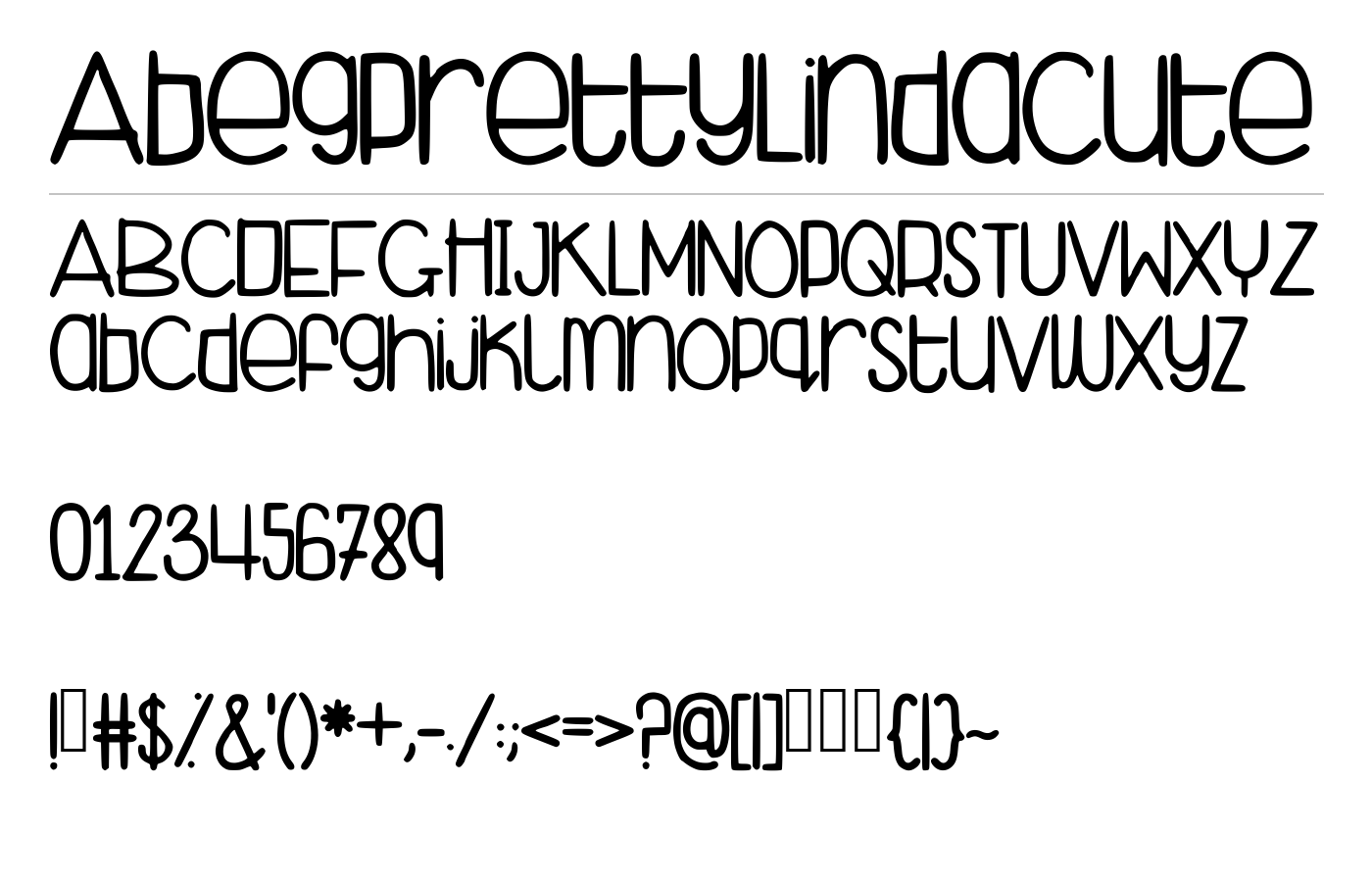
AbegPrettyLindaCute is a playful, hand-drawn sans serif font featuring tall, narrow letterforms with uneven strokes that give it a charming, whimsical character. Its light weight and casual style make it ideal for informal designs aimed at a fun, youthful audience, such as children's books, greeting cards, or creative branding. This font brings a friendly, approachable feel that works well where personality and warmth are desired.
AbegPrettyLindaCute Font
About AbegPrettyLindaCute Font